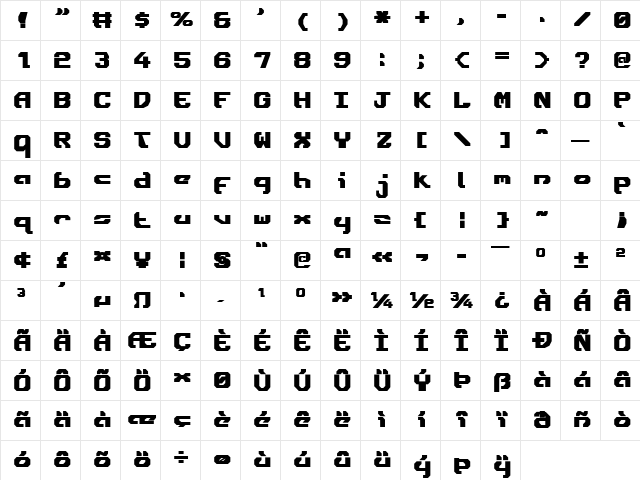
Complete Ensign Flandry Bold glyph index. Displaying only characters natively supported by Ensign Flandry Bold font.
Ensign Flandry is a composed and adaptable typeface that performs quietly and consistently across a wide range of design contexts. Its bold stroke weight gives it real presence on the page.